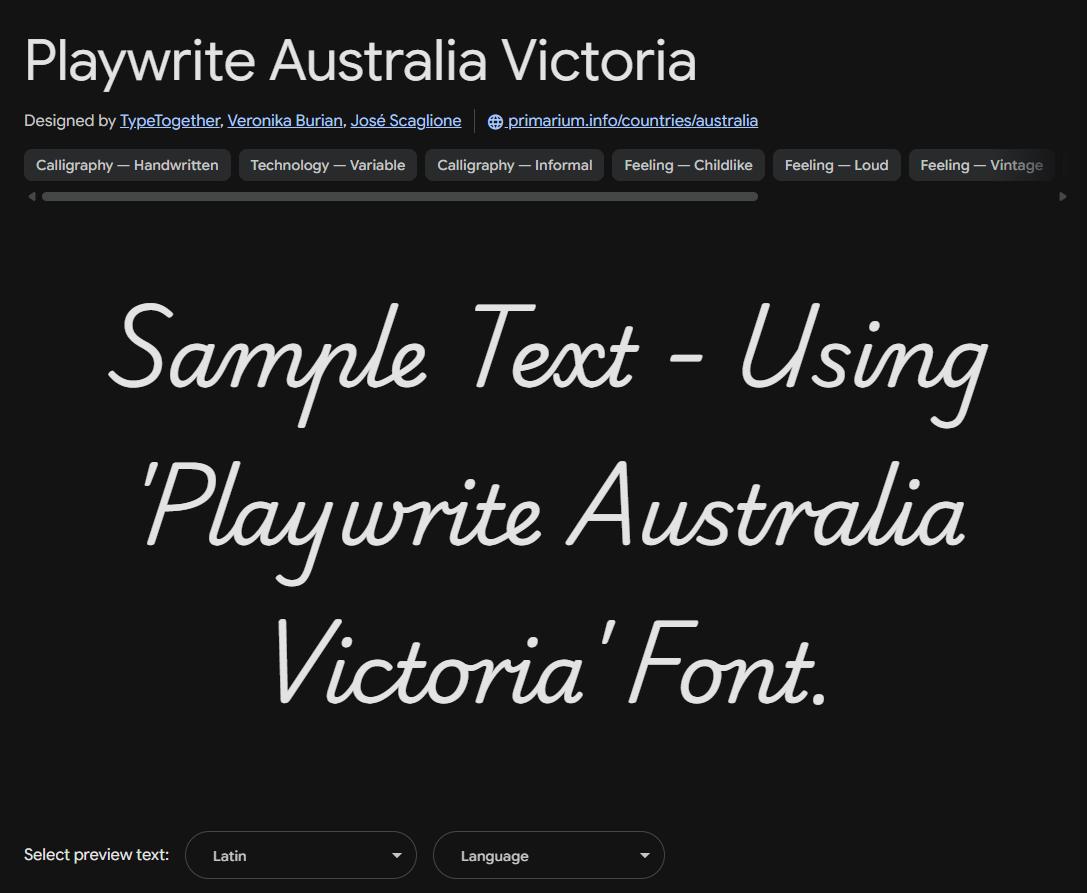
Playwrite Australia Victoria, engineered by Veronika Burian and José Scaglione of TypeTogether, represents a sophisticated synthesis of pedagogical tradition and modern variable font technology, specifically tailored to the regional handwriting standards of Victoria. This single-axis variable typeface leverages advanced OpenType join logic to maintain fluid cursive continuity, ensuring that each glyph's entry and exit strokes adapt dynamically across the weight interpolation range to simulate authentic digital ink flow. By integrating localized letterform structures into a high-performance font file, the designers have created a semantically optimized tool that bridges the gap between static educational models and responsive UI/UX environments, providing a technically precise solution for literacy development within the contemporary design space.
The Playwrite Australia Victoria typeface emerges as a revolutionary implementation of "Technology - Variable" within the realm of pedagogical design, meticulously blending "Calligraphy - Handwritten" authenticity with the strictures of the Victorian Modern Cursive style. This "Calligraphy - Informal" family utilizes its variable axis to navigate the space between a "Feeling - Childlike" innocence and a "Feeling - Rugged" tactile texture, effectively digitizing the visceral experience of ink on parchment. Its visual DNA radiates a "Feeling - Happy" and "Feeling - Playful" energy, yet maintains a "Feeling - Loud" presence through bold stroke modulation that honors its "Feeling - Vintage" educational roots. By integrating these diverse emotional profiles into a high-performance font system, Playwrite Australia Victoria provides a semantically rich typographic toolset that bridges the gap between traditional penmanship and modern digital literacy with unparalleled fluidity.
The Playwrite Australia Victoria variable typeface, while a pedagogical triumph in simulating the Victorian Modern Cursive style, is fundamentally ill-suited for high-density technical documentation or high-stakes corporate legalities where utilitarian legibility and formal neutrality are paramount. Its intricate joining logic and the specific stroke-path variables designed by Veronika Burian and José Scaglione prioritize educational handwriting acquisition over the rapid character recognition required for data-rich interfaces or legal small print. The inherent "Slant" axis and the contextually sensitive ligatures-while essential for teaching join-up patterns-introduce an informal, rhythmic cadence that undermines the authoritative gravitas needed in sectors like aerospace engineering or forensic accounting, where the risk of glyph misinterpretation in a variable font environment outweighs the font's primary function of mimicking human motor-skill development.
This typeface excels in educational and artisanal contexts that prioritize a clean, cursive aesthetic. Its variable stroke weight and humanist skeletal structure harmonize effectively with Neo-Victorian and modern organic design frameworks.
While highly expressive, the font is primarily designed for short passages rather than extensive blocks of text. The high degree of character joining can increase visual density, potentially compromising reading speed in multi-column editorial spreads.
The font renders with exceptional clarity on 4K and Retina displays due to its precise vector outlines. Modern rasterization engines maintain the integrity of its delicate terminals, ensuring a consistent sub-pixel rendering performance across diverse browser environments.
Geometric sans-serifs provide a stable foundation that contrasts the fluid motion of this script. Pairing it with a high-x-height slab serif creates a sophisticated typographic hierarchy by balancing cursive loops with rigid horizontal terminals.
It serves as a strong choice for minimalist logos that seek a personal, handcrafted touch. The font's glyph alternates allow designers to manipulate kerning and ligature flow to create a unique brand mark without excessive modification.
Legibility remains high at medium sizes, but very small scales may cause complex glyphs to blur. To maintain clarity at 8pt or below, designers should implement positive tracking to prevent the script's connecting strokes from collapsing into singular shapes.
As part of the Playwrite project, this font focuses on a consistent weight profile to mimic authentic handwriting. Users can achieve visual variance by adjusting the stroke-to-fill ratio or leveraging CSS variable font properties to simulate weighted emphasis.
It brings an air of modern sophistication and personal warmth to wedding invitations and corporate galas. The font utilizes the Australia Victoria Department of Education cursive model, providing a culturally grounded authenticity that outperforms generic commercial scripts.
The font is highly effective for large headers where its distinctive loops and fluid connections can be fully appreciated. Its high stroke contrast requires careful consideration of viewing distance to avoid legibility drop-off caused by atmospheric interference on outdoor signage.
It is an ideal tool for brands that want to convey sincerity, craftsmanship, and an approachable personality. Its open-source availability and compliance with Unicode standards make it a technically reliable asset for multi-platform digital branding strategies.